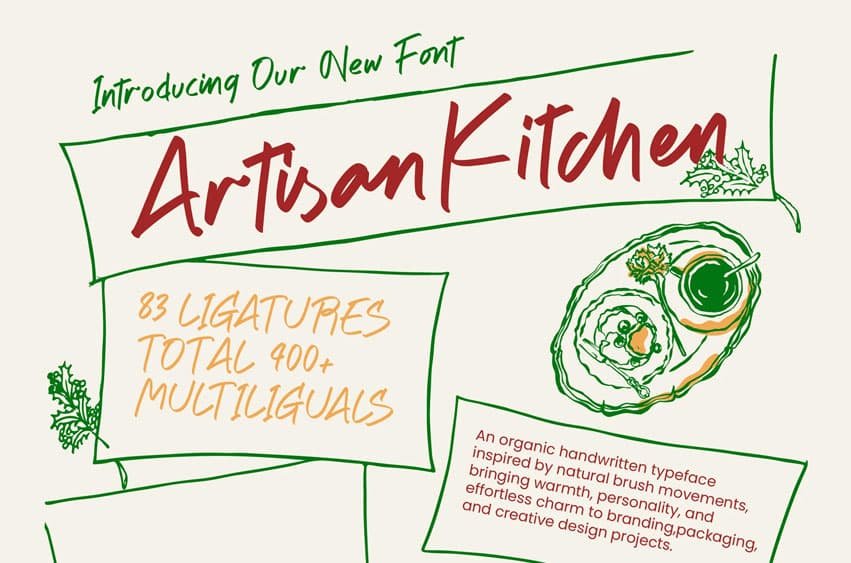
Artisan Kitchen Font Handwritten Font Elevate your creative projects with the organic elegance of Artisan Kitchen – Handwritten Font, a typeface designed to capture the authentic spirit of natural brush movements. This handcrafted aesthetic brings an immediate sense of warmth and personality to any layout, bridging the gap between professional design and human-centric artistry. Its fluid strokes and effortless charm make it an essential tool for creators seeking a high-quality, organic typeface that feels both contemporary and timeless.
Perfectly suited for boutique branding and premium packaging, Artisan Kitchen – Handwritten Font excels in environments where authenticity is paramount. It is the perfect solution for hospitality menus, editorial design, and luxury lifestyle labels that require a personalized, bespoke touch. Whether utilized for social media graphics or custom stationery, this font adds a layer of rustic sophistication that resonates deeply with modern, discerning audiences.